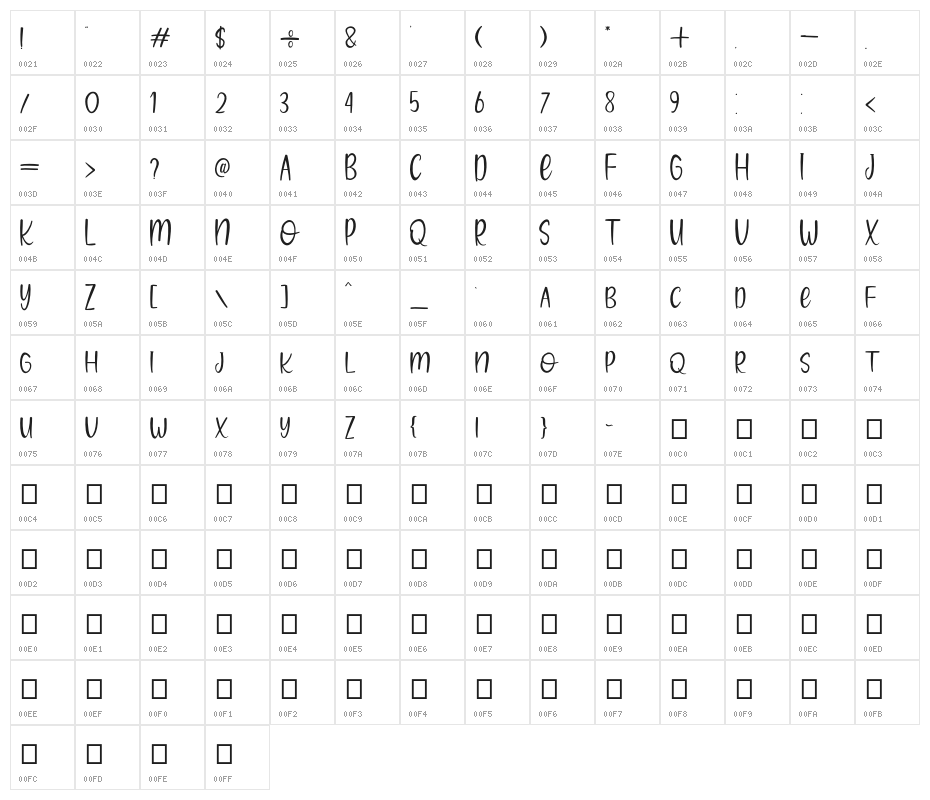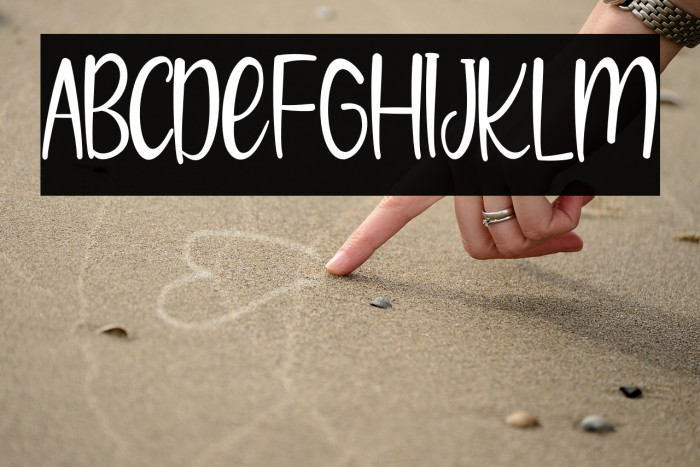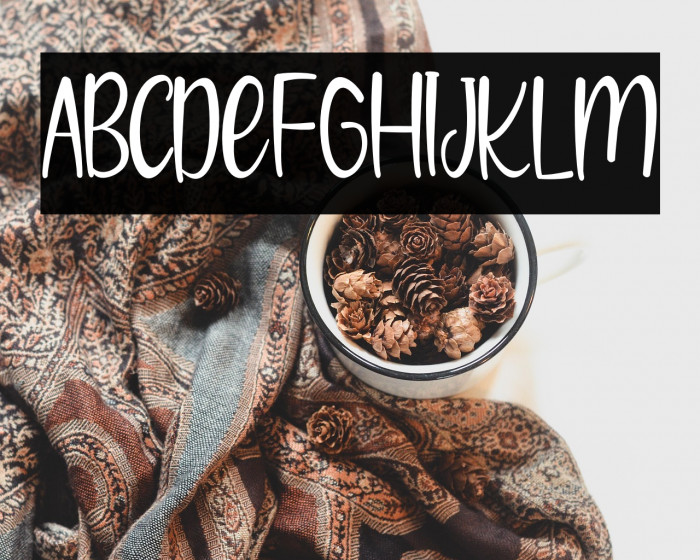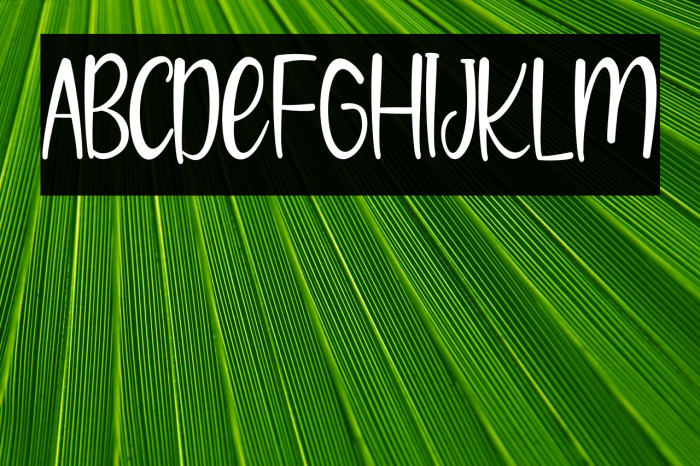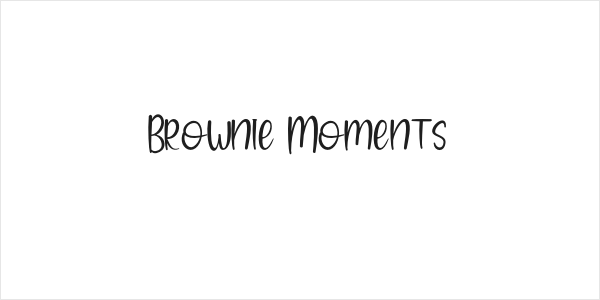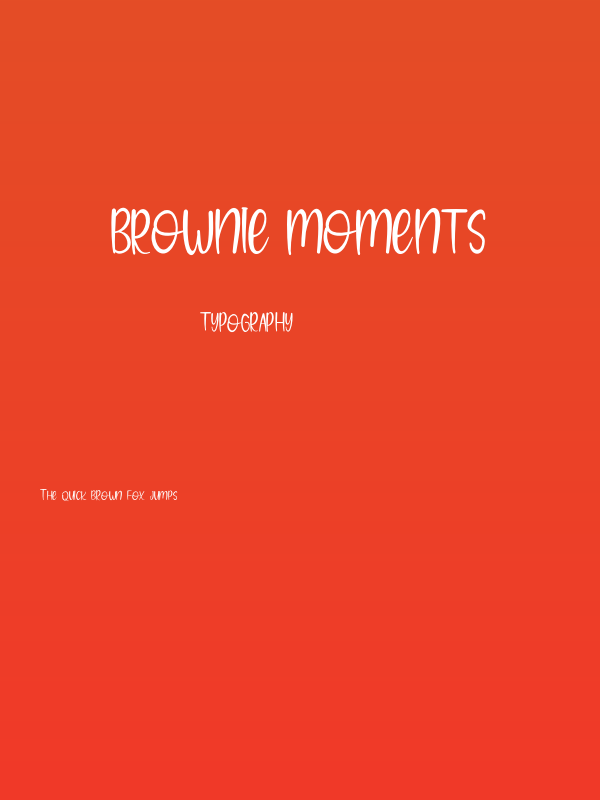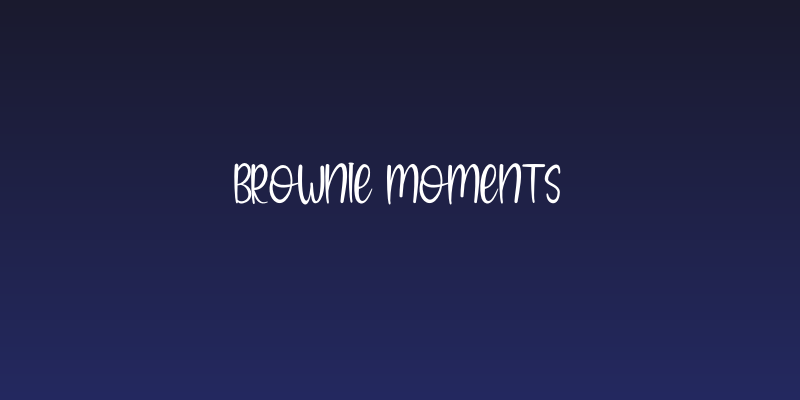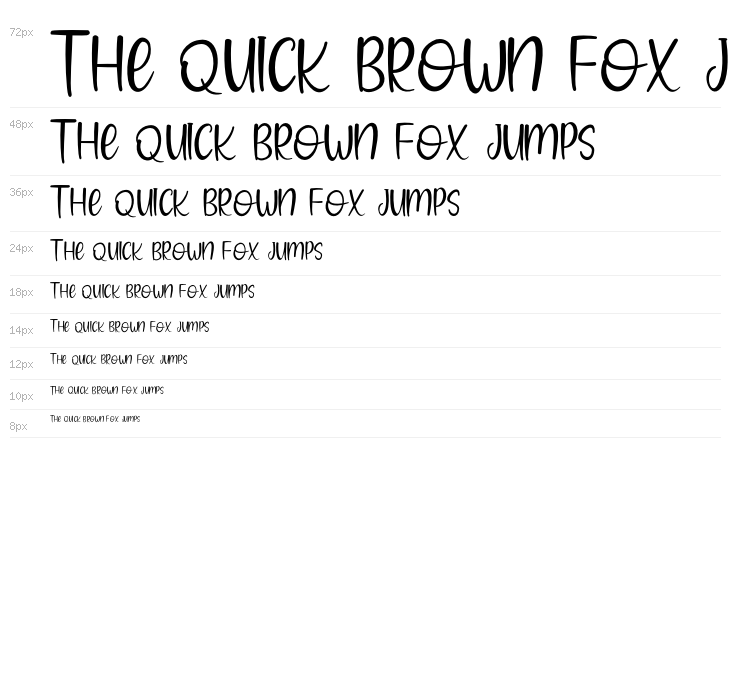
Brownie Moments Font
Brownie Moments Description
This font features a playful and whimsical style, characterized by its smooth, flowing curves and slightly irregular letterforms. The uppercase and lowercase letters maintain a consistent height, creating a harmonious appearance. The strokes are moderately thick, providing a bold presence without overwhelming the design. The numerals and special characters are crafted with the same playful aesthetic, ensuring a cohesive look across all elements. This font's unique charm makes it suitable for projects that require a touch of personality and creativity.